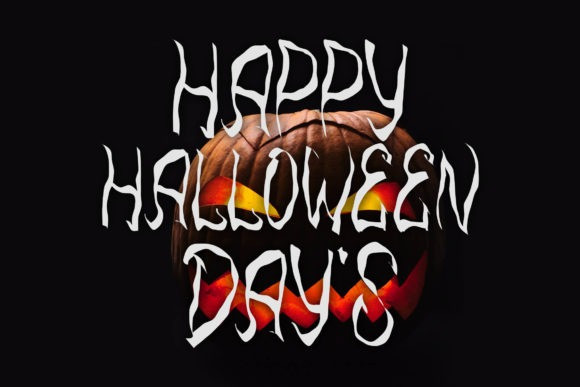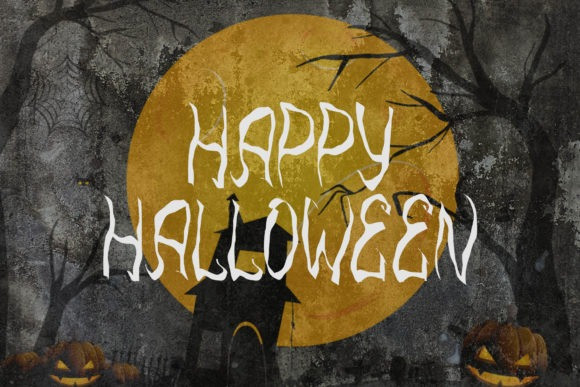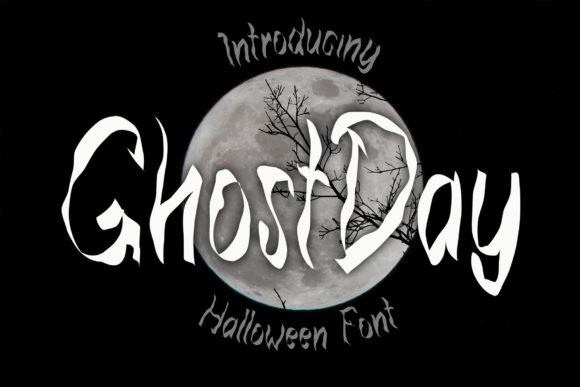
Ghost Day Font
Ghost Day Font is a creepy and brushed display font. It is perfectly suitable for any Halloween-related project or crafty idea! The only limit is your imagination.